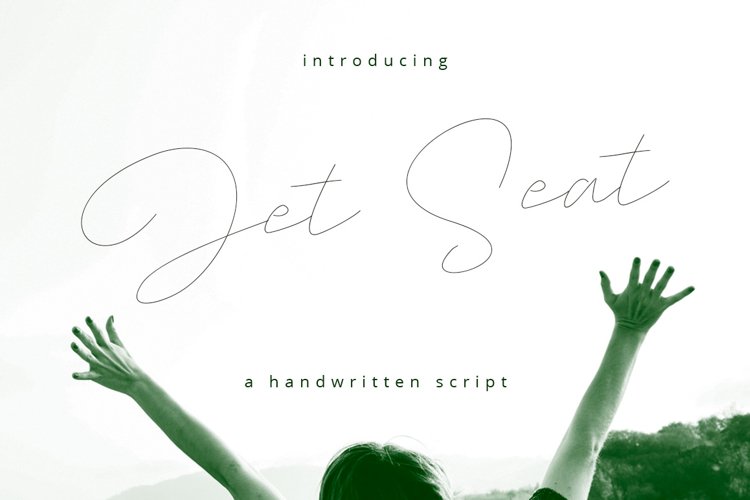
Jet Seat Script Font
Jet Seat Script is our latest product that has playful characters with handwritten style. This font is very suitable for beautiful logos, invitations, posters, magazines, and photography.
Jet Seat Script goes with monoline signature and feminine script, ready to give your design project a fresh and playful style.